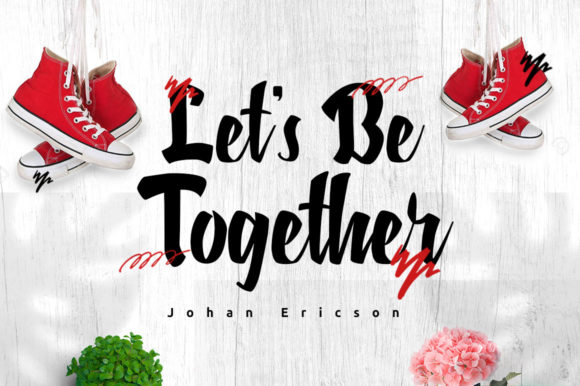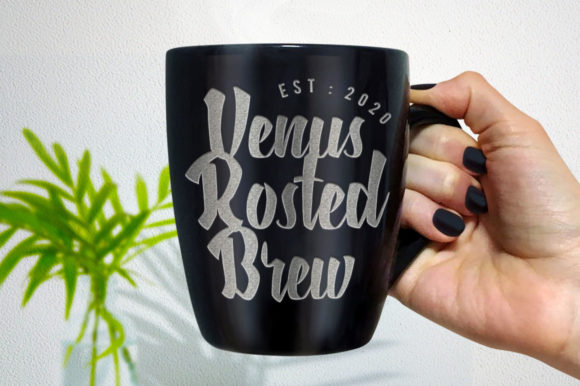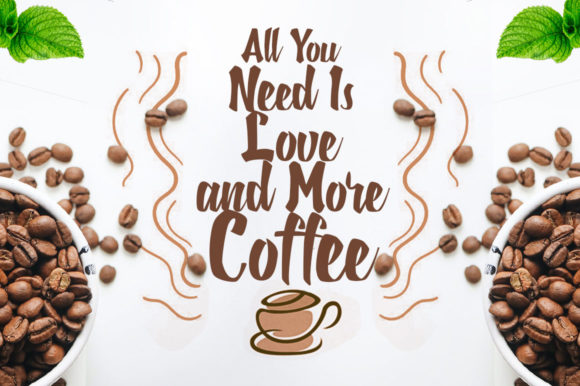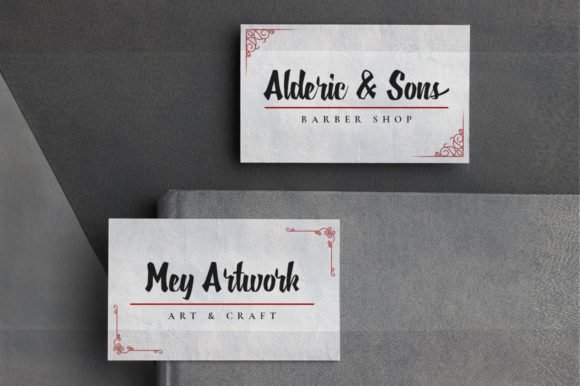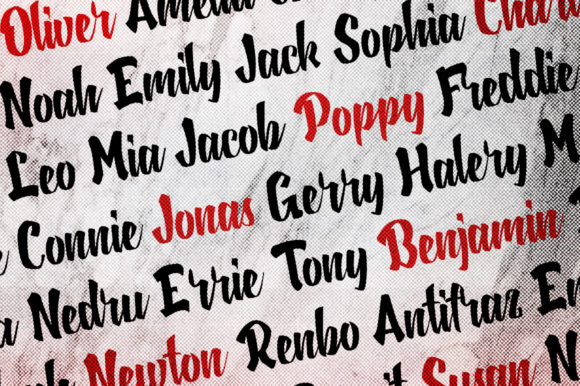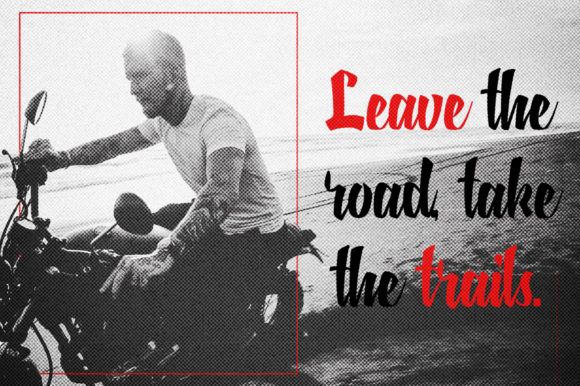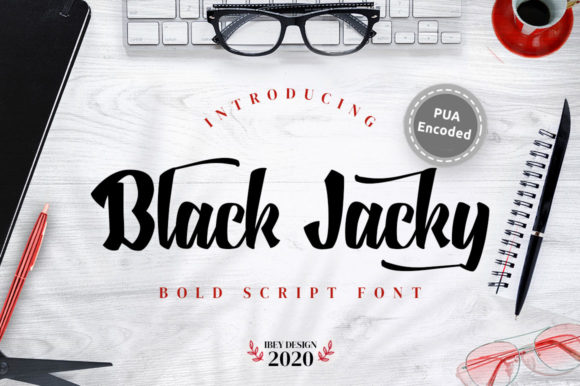
Introducing Black Jacky Font: Elevate Your Designs with Elegance and Sophistication
In the world of typography, fonts play a crucial role in conveying the tone and personality of a design. For designers and crafters looking to add a touch of romance and sophistication to their projects, the Black Jacky Font is an excellent choice. This bold and elegant script font has gained popularity for its versatility and wide range of applications, making it a go-to for various design needs.
What is Black Jacky Font?
Black Jacky is a bold and elegant script font that exudes luxury and refinement. Its unique and flowing strokes make it perfect for designs that require a high level of sophistication. Whether you’re working on a greeting card, a headline, or any other project that demands attention, Black Jacky Font is guaranteed to add a romantic feel that elevates your design to the next level.
Key Features of Black Jacky Font
- Bold and Elegant: Black Jacky Font boasts a bold and elegant appearance, making it suitable for designs that require a touch of luxury and sophistication.
- Versatile: This script font has a wide range of applications, from greeting cards and headlines to packaging and branding.
- Romantic Feel: Black Jacky’s unique strokes and flowing curves add a romantic touch to any design, making it perfect for projects that require an emotional connection.
- Ease of Use: Black Jacky Font is easy to use and can be incorporated into various design software, making it accessible to designers of all levels.
Applications of Black Jacky Font
Black Jacky Font’s versatility makes it an excellent choice for a wide range of design applications. Some of the most popular uses of this font include:
- Greeting Cards: Add a touch of elegance and sophistication to your greeting cards, making them perfect for special occasions.
- Headlines: Use Black Jacky Font to create bold and eye-catching headlines that grab attention.
- Branding: Incorporate Black Jacky Font into your brand identity to convey a sense of luxury and refinement.
- Packaging: Elevate your packaging design with Black Jacky Font, making your products stand out on store shelves.
Tips for Using Black Jacky Font
To get the most out of Black Jacky Font, here are some tips to keep in mind:
- Pair with Simple Fonts: Pair Black Jacky Font with simple and clean fonts to create a balanced design.
- Use for Headlines: Use Black Jacky Font for headlines and titles to create a bold and eye-catching effect.
Black Jacky Font is a bold and elegant script font that offers a wide range of applications for designers and crafters. Its versatility, ease of use, and romantic feel make it an excellent choice for various design projects. Whether you’re working on a greeting card, headline, or branding project, Black Jacky Font is guaranteed to elevate your design to the next level. So, why wait? Download Black Jacky Font today and experience the power of elegant typography.